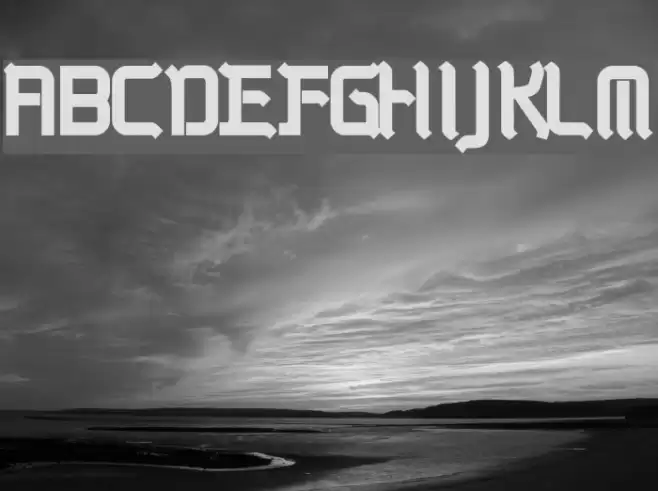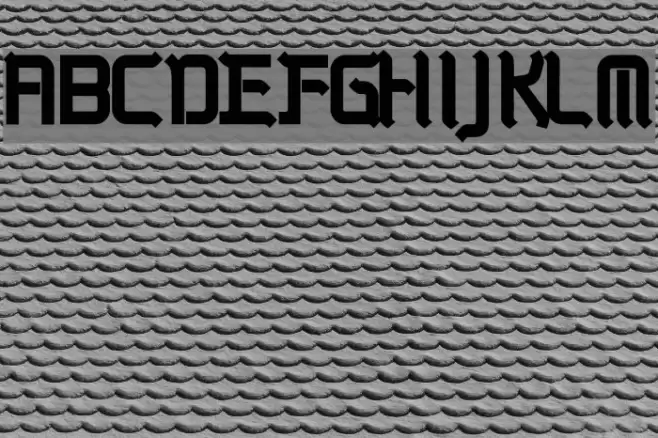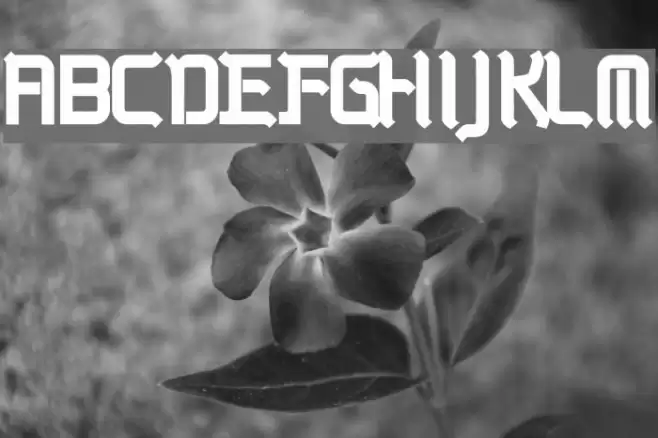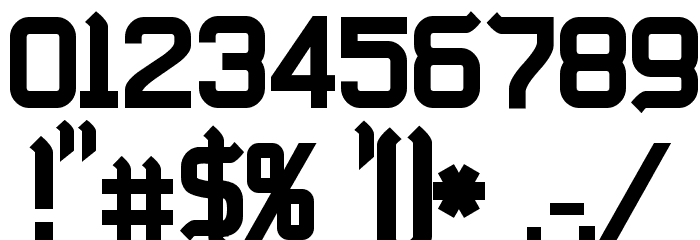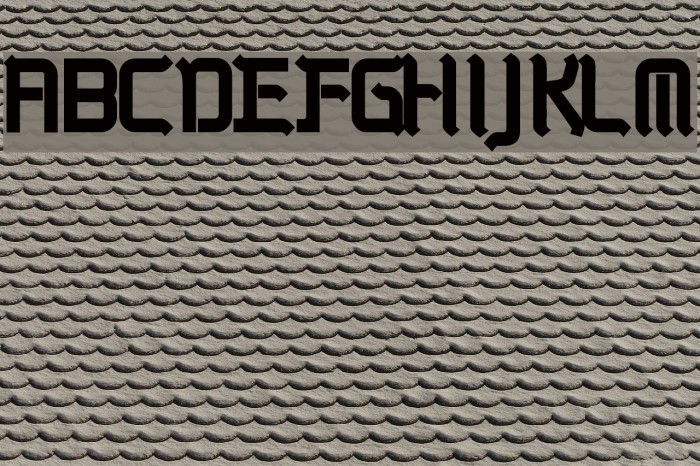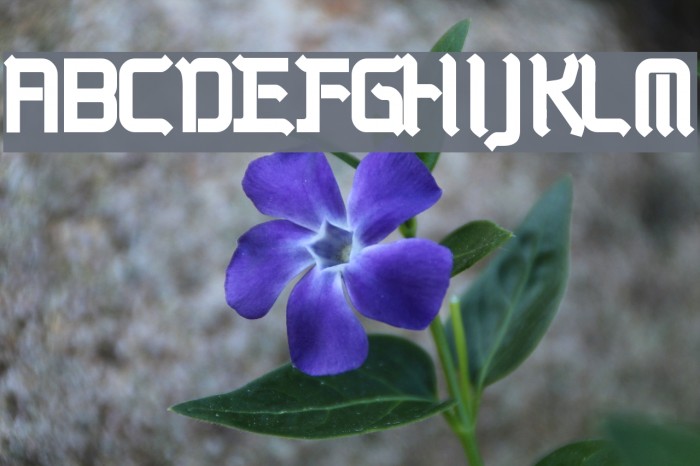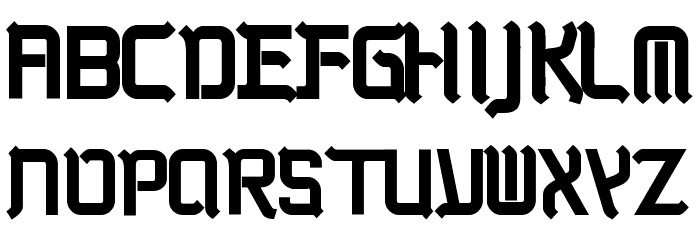
Kwadryga Font
Kwadryga Description
This font features a bold, geometric design with sharp angles and a distinct, futuristic appearance. The characters are constructed with a uniform stroke width, giving them a solid and robust look. The angular cuts and pointed edges create a dynamic and aggressive style, making it stand out in any design. The uppercase and lowercase letters maintain a consistent style, while the numerals and special characters complement the overall aesthetic. This font is ideal for projects that require a modern and edgy feel, such as technology-related branding or sci-fi themed designs.
A bold, geometric font with sharp angles and a futuristic style from Serif fonts.